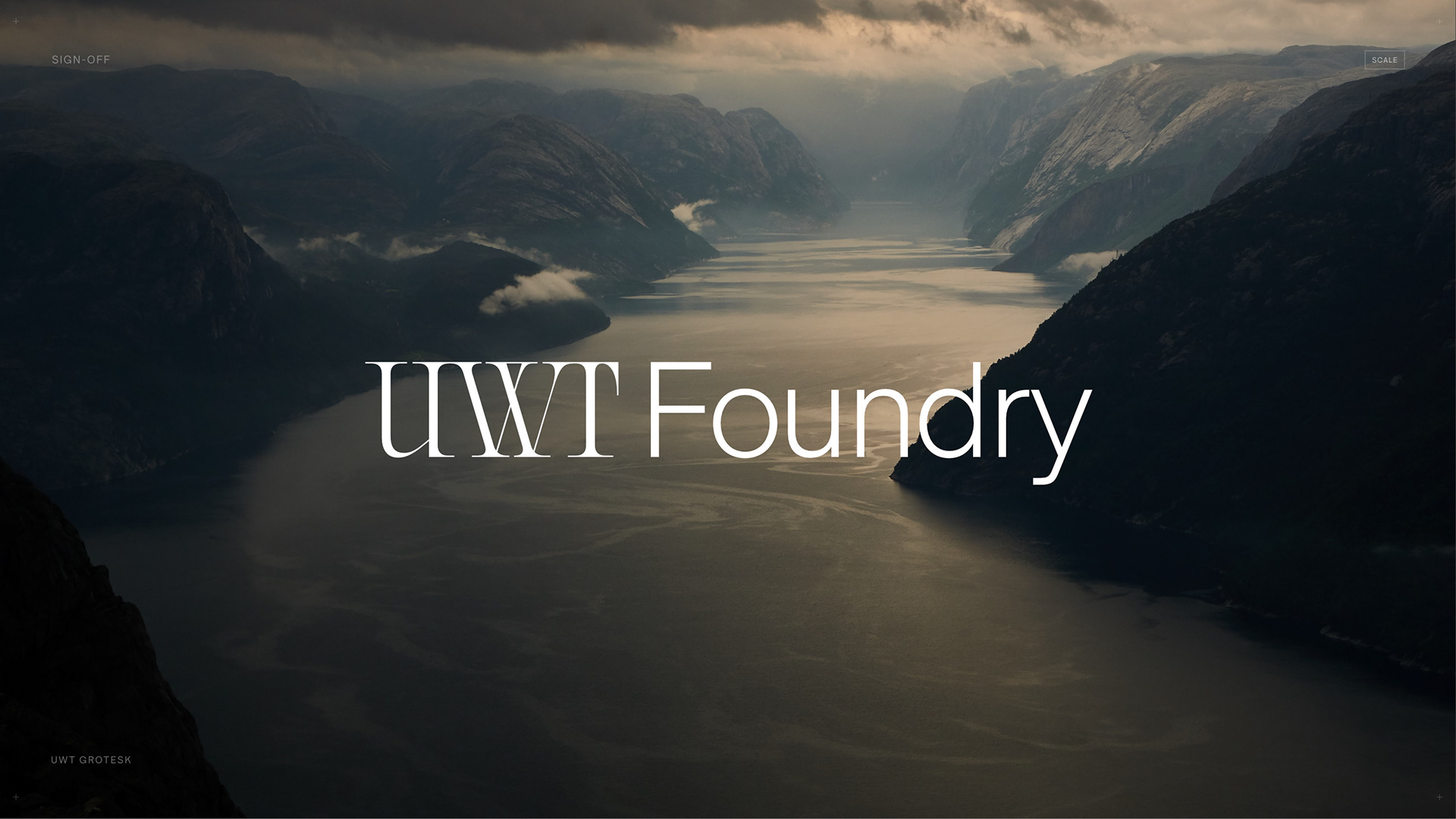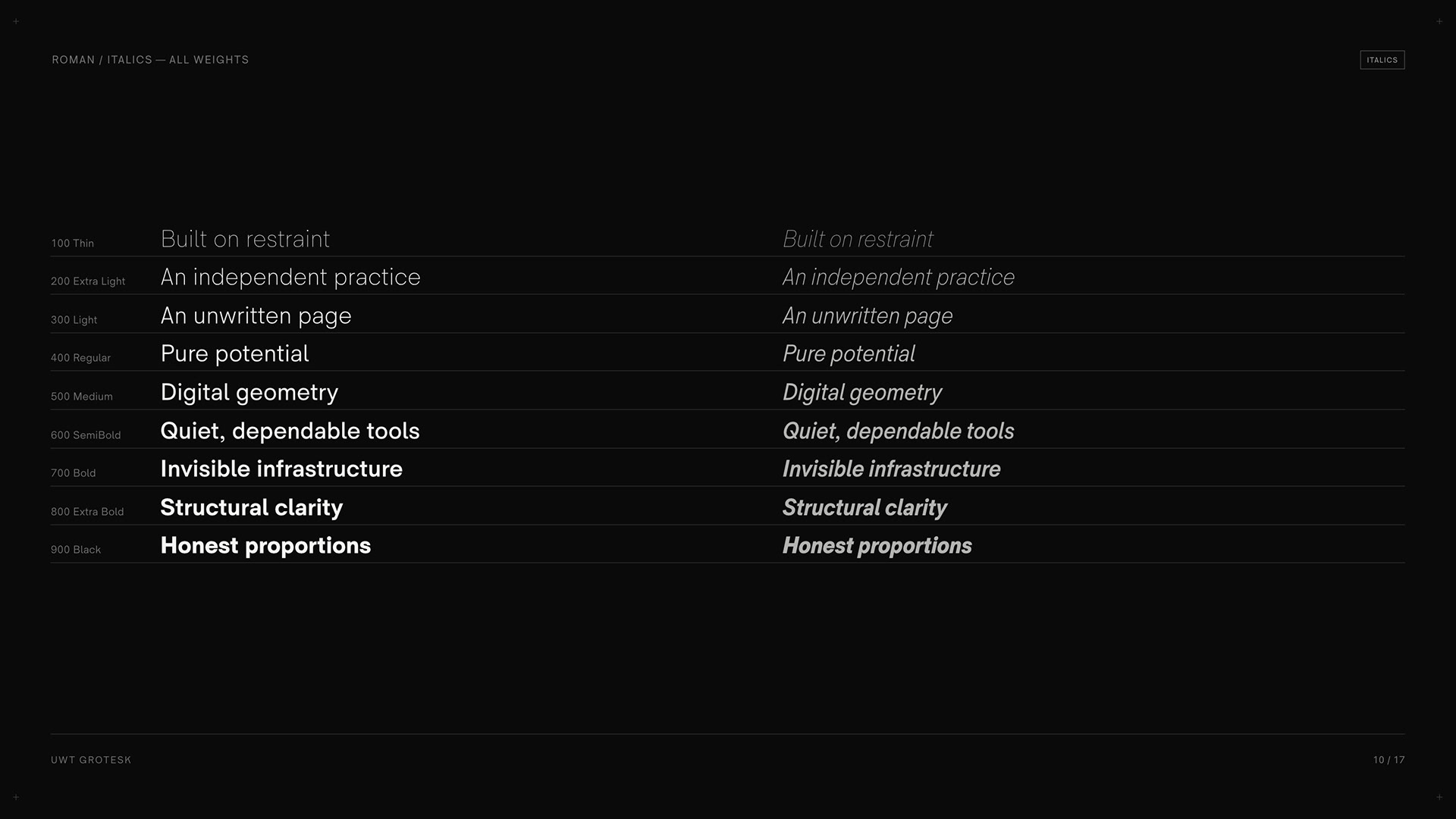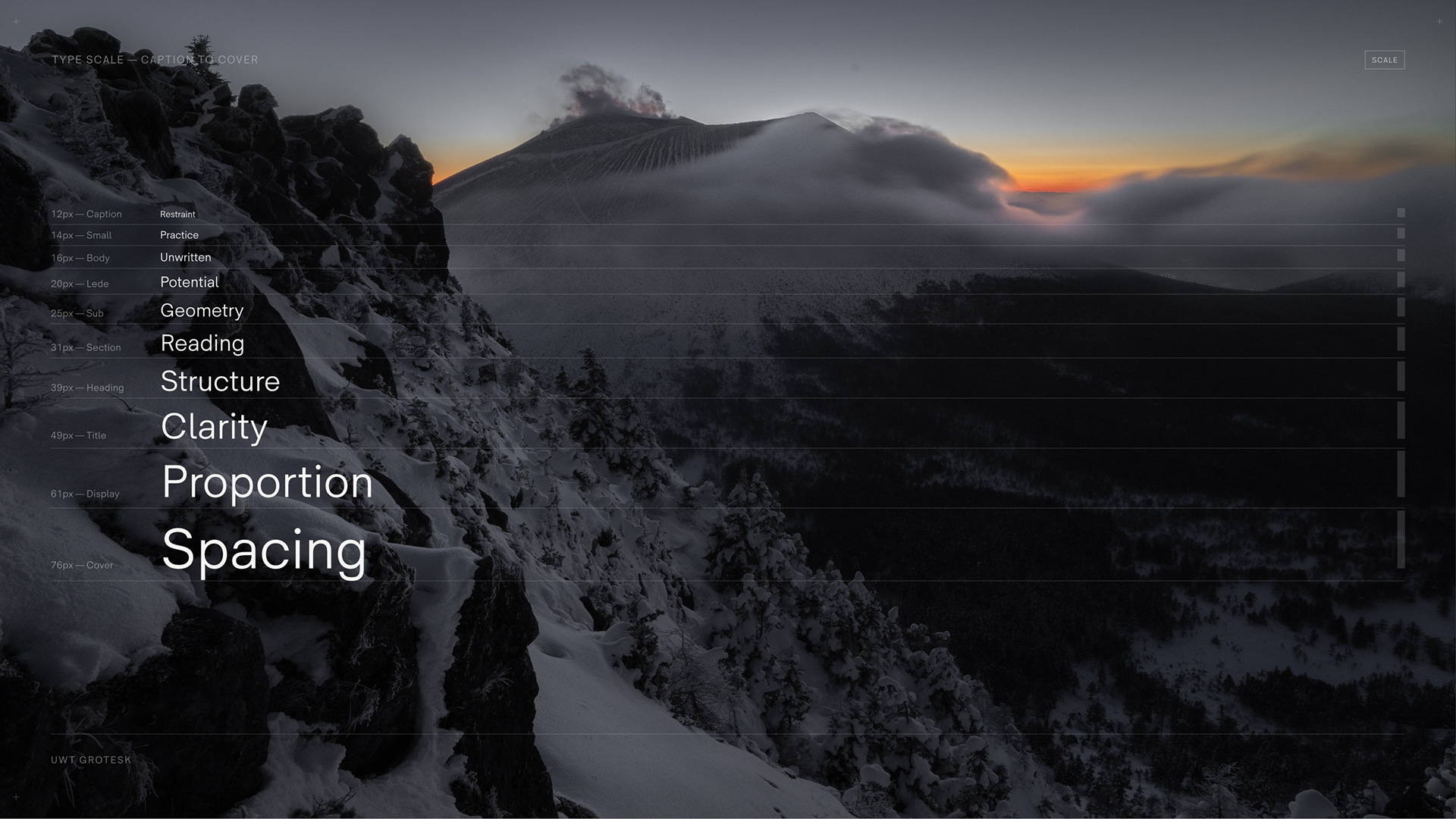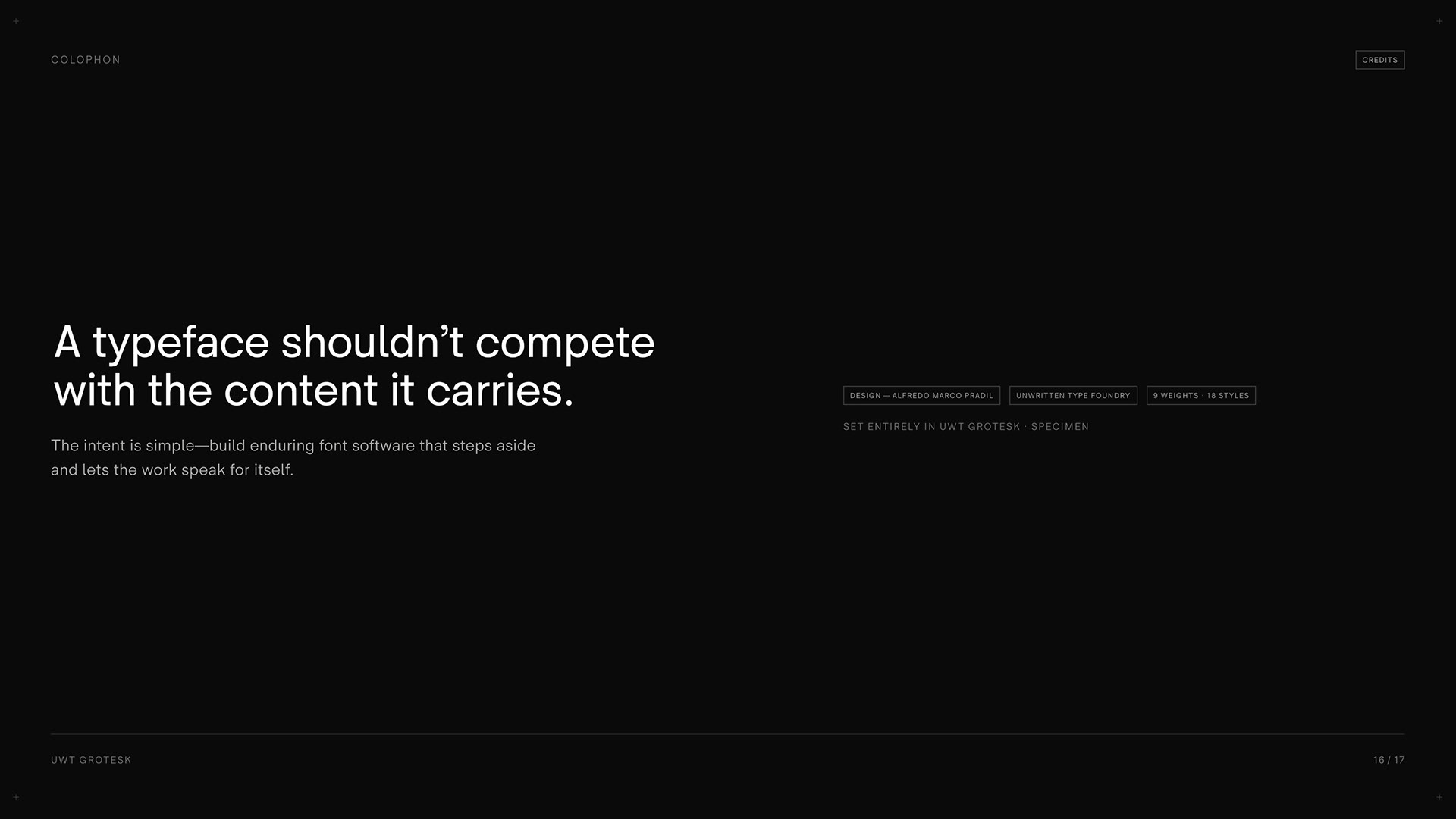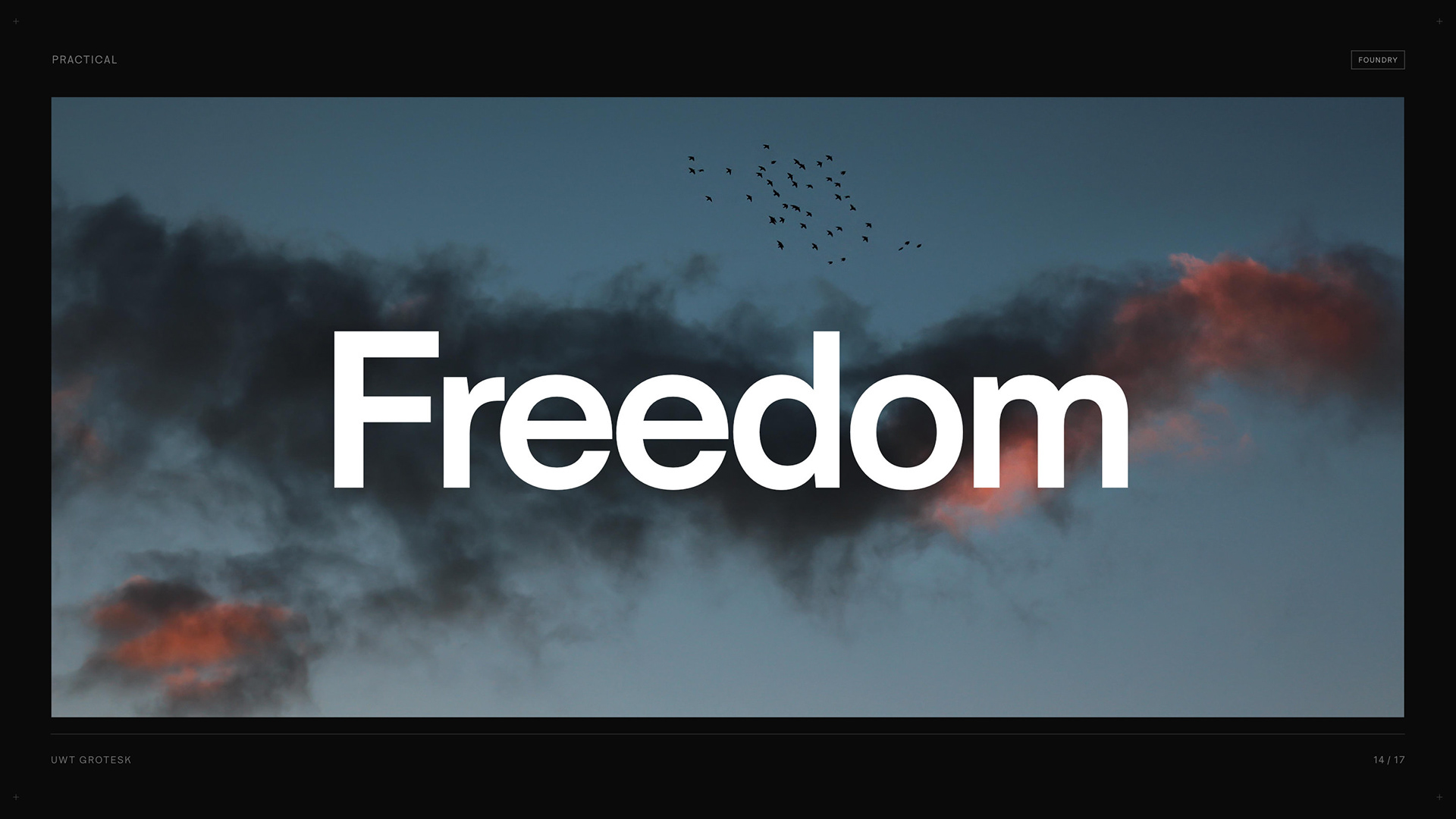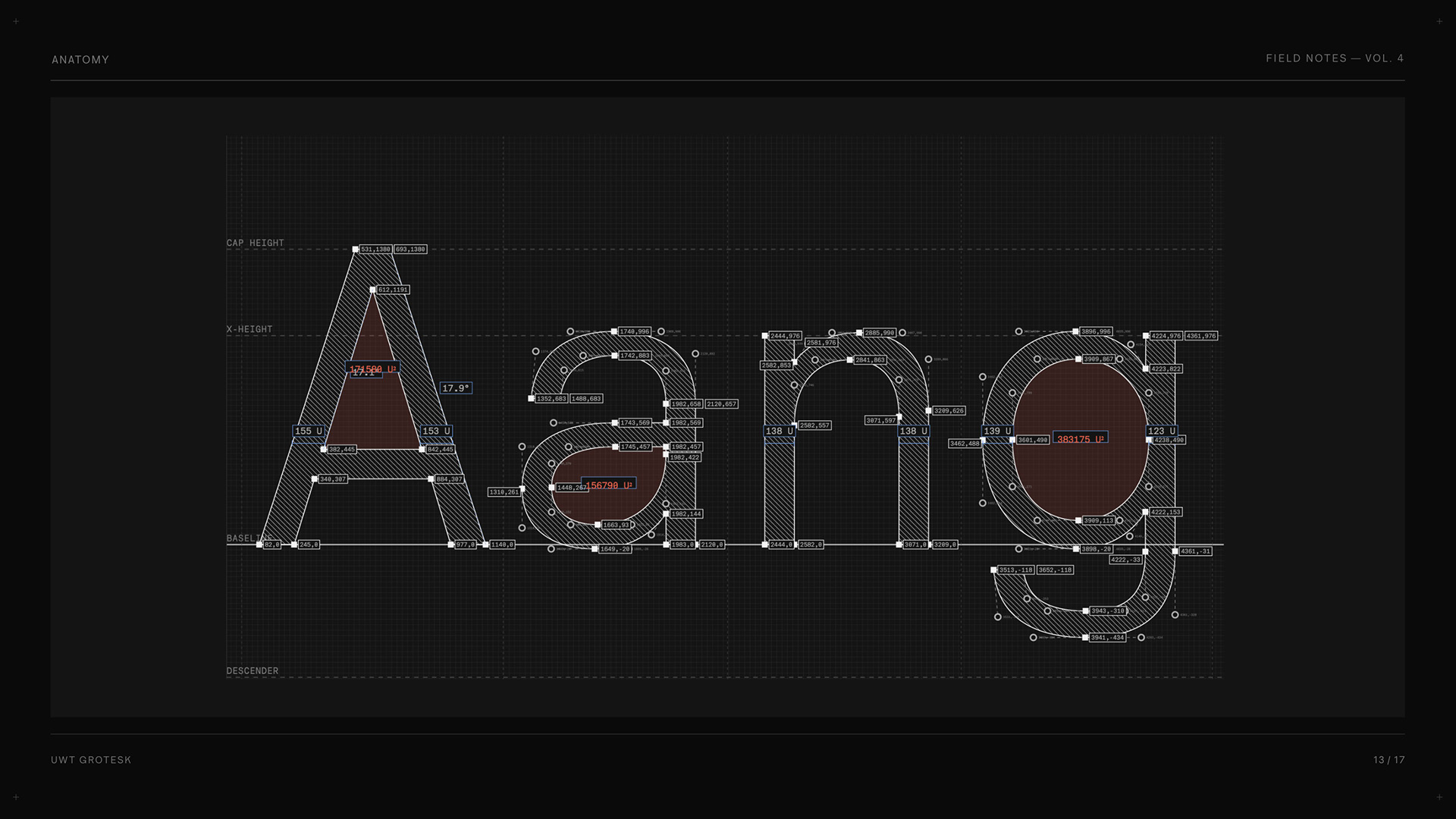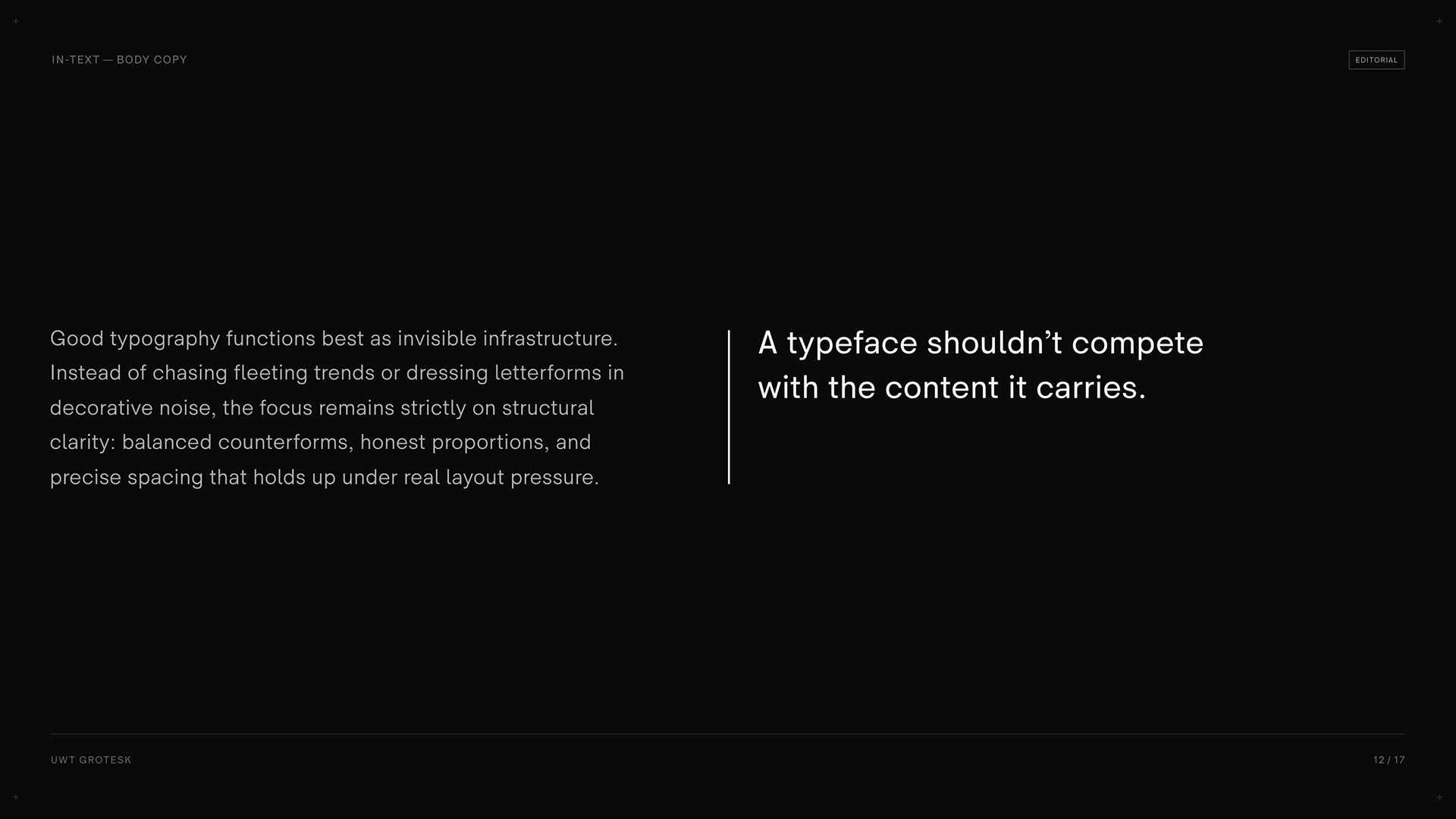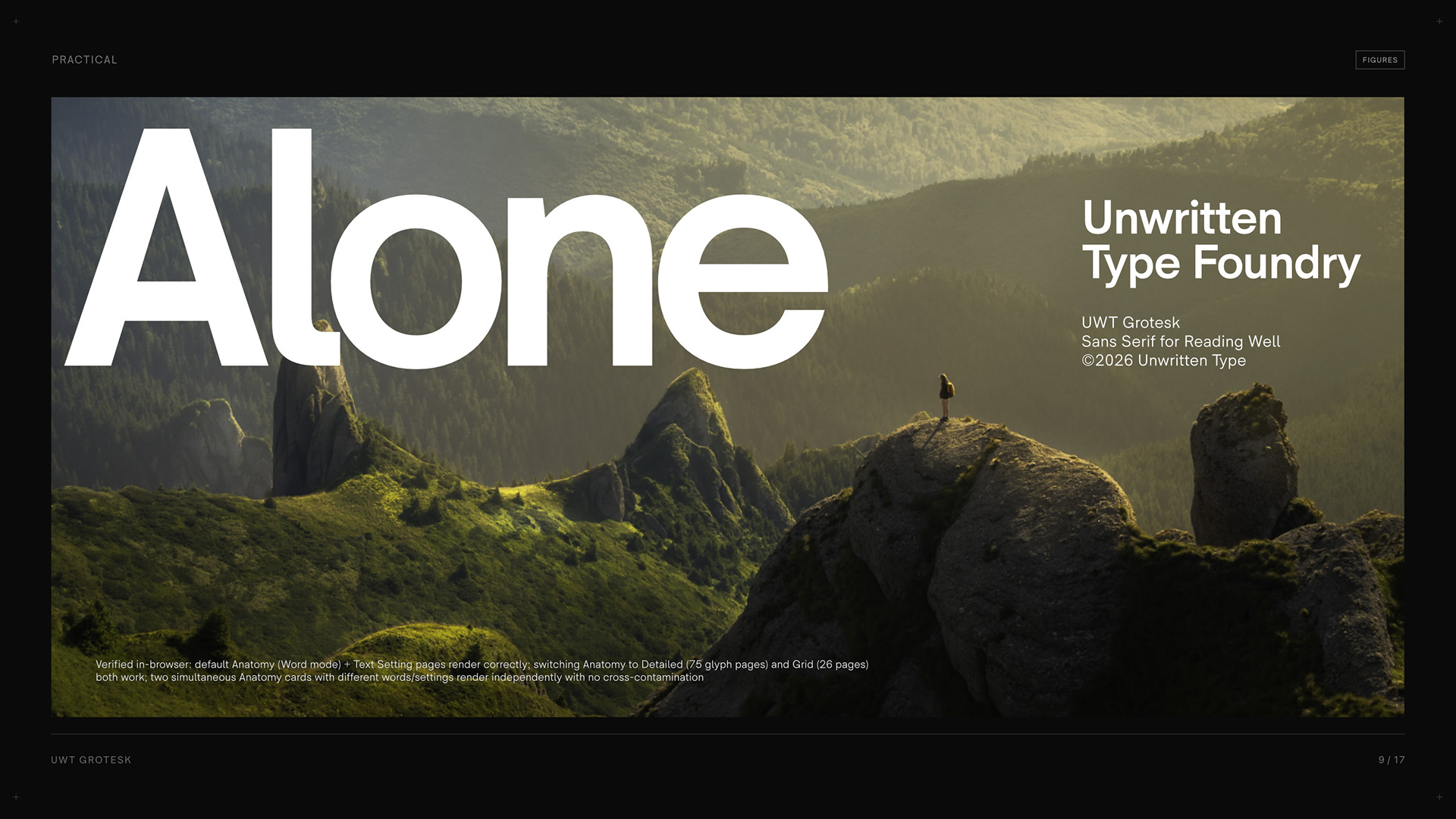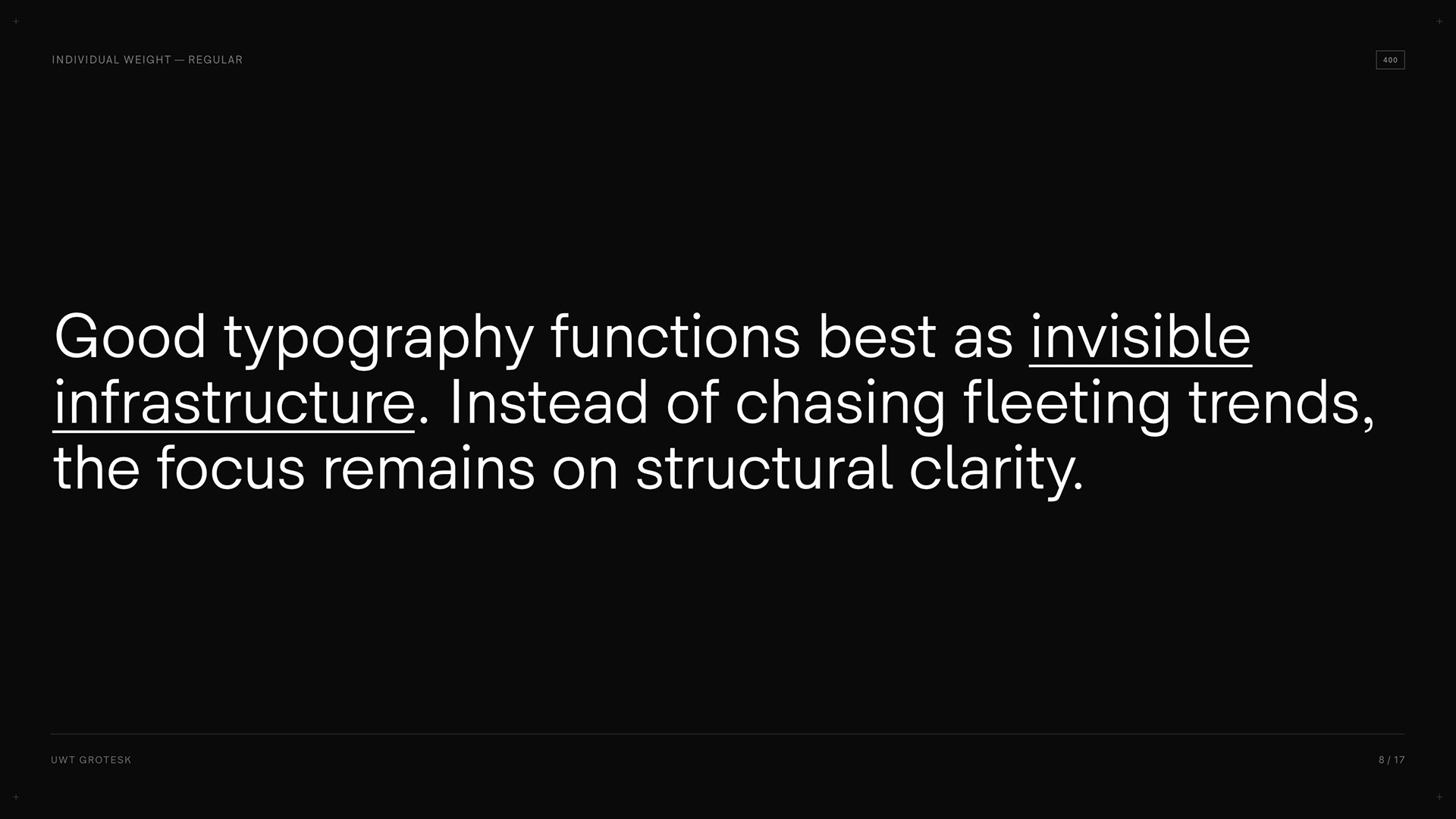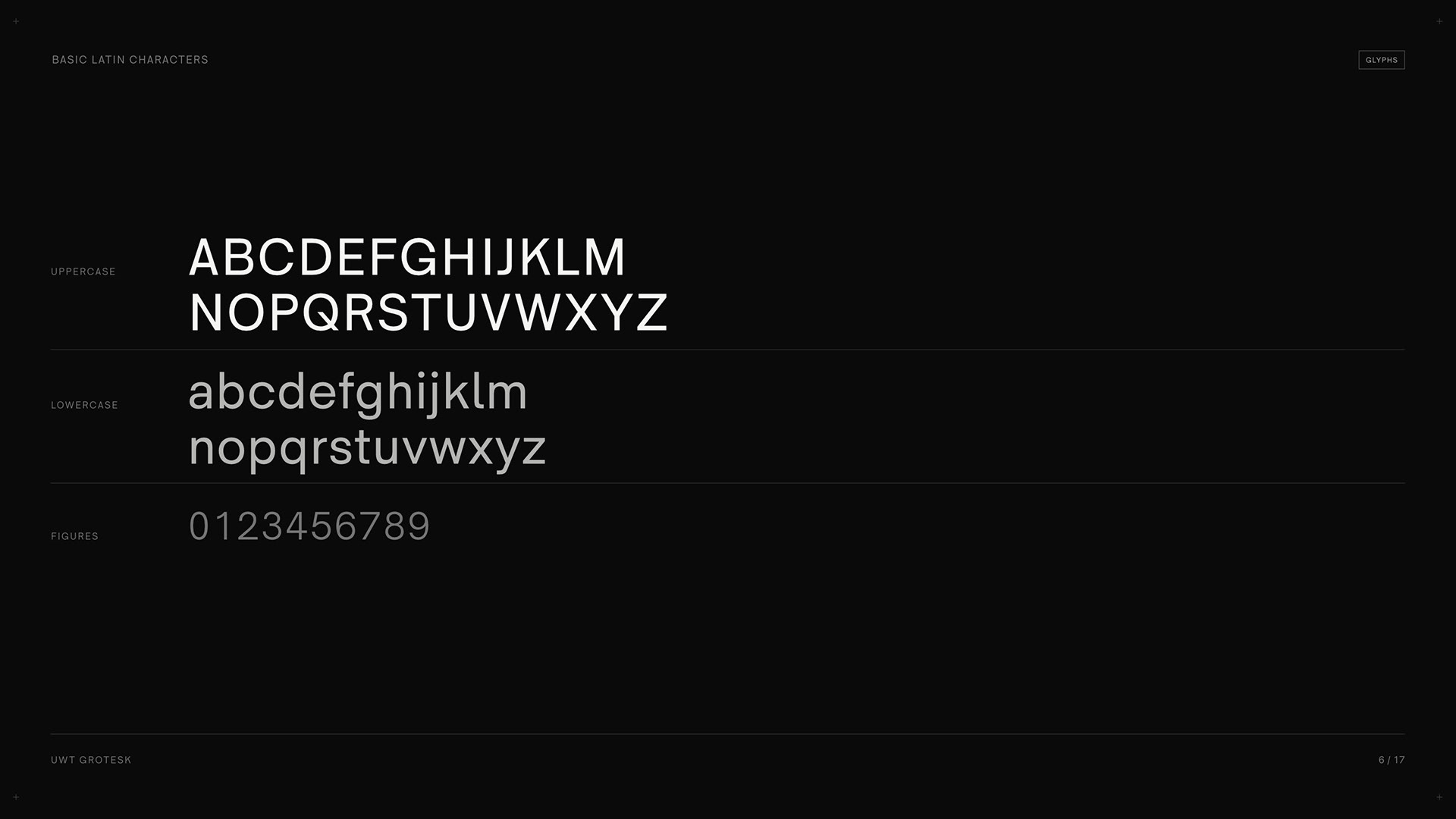
UWT Grotesk Typeface
UWT Grotesk splits the difference between grotesque and geometric. It's inspired by Helvetica for the tight, dependable text-setting and by Avenir for the clean geometric shapes, then softens the terminals and evens out the stroke contrast so it doesn't go cold at length. The grotesque side keeps it grounded and legible; the geometric side keeps it from feeling dated. Nine weights, each with a matching italic — eighteen styles in total, built to move as one coherent system rather than a pile of unrelated cuts. It holds up at 9pt body copy without the letters clogging together, and scales just as well onto signage, where you need shapes that read fast from a distance. A couple of details worth knowing. The lowercase l has a tail, which helps it stay distinct from a capital I at small sizes — a small fix for a problem most grotesques never bother to address. There's also an optional single-storey "Schoolbook" a you can swap in if you want something a little friendlier or more approachable in tone. Together, they keep the letterforms legible whether you're reading them on a screen, on a printed page, or from across a room on a wall.